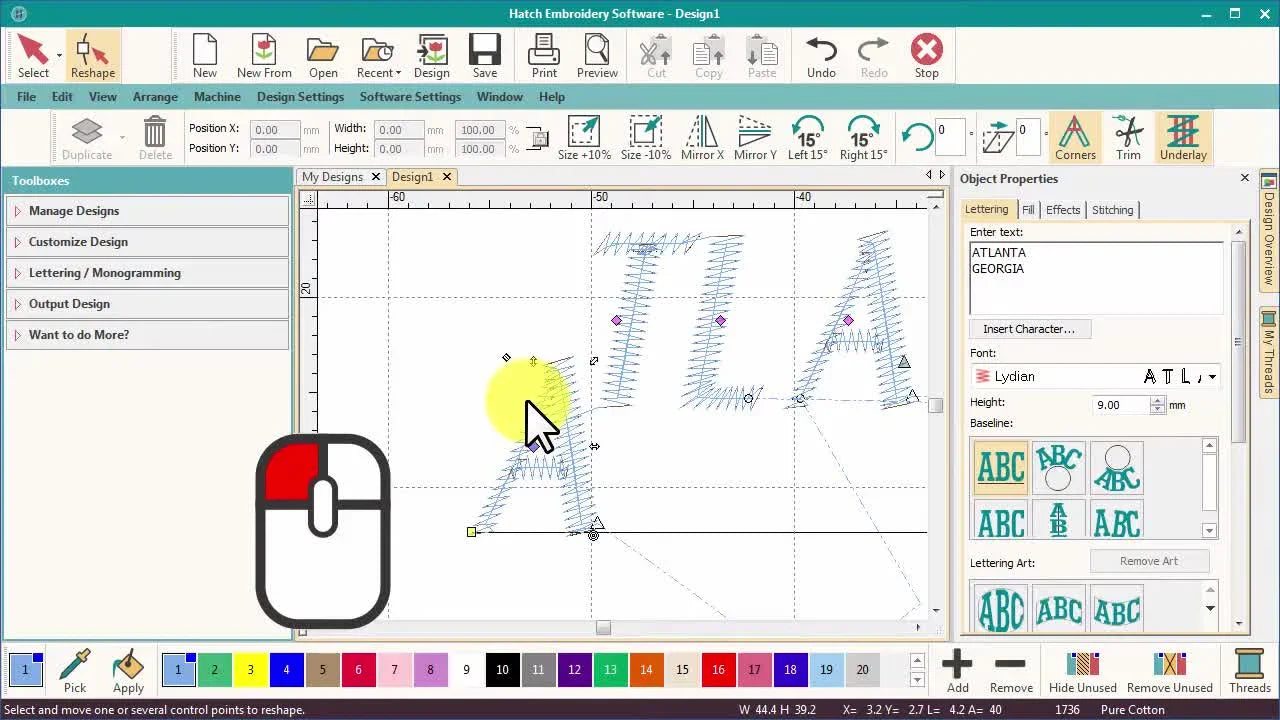
Lettering is where most embroidery jobs either look “pro” or look homemade—fast. If you’ve ever stared at a name or team line and thought, Why does this spacing feel off? Why does that one letter look like it’s drifting?—you’re exactly who the Hatch Reshape tool was built for.
Experience tells us that embroidery is a game of millimeters. A visually balanced design on screen can easily become a disaster on fabric if the physics of thread breaks and hoop tension aren't respected.
This post rebuilds the full workflow shown in the video (baseline controls → letter nodes → Shift/Ctrl moves → per-letter transforms → vector node editing), then adds the missing shop-floor reality: what these edits do to stitch quality, how to avoid the classic “I fixed spacing but created thread breaks” trap, and when it’s smarter to upgrade your production tools instead of fighting hooping and re-hooping.
The Reshape Tool in Hatch Embroidery Software: the calm way to take control of lettering (without panic-clicking)
When you select the Reshape Tool in Hatch, you’ll see two families of controls appear. Think of this like adjusting a camera lens: first you zoom (global), then you focus (local).
- Line nodes / baseline handles (these affect the whole text line)
- Letter nodes (diamond-shaped nodes that let you manipulate individual characters)
The video demonstrates this using a Text Object set to “ATLANTA GEORGIA”.
A small but important mindset shift: you’re not “editing letters” first—you’re deciding whether the problem is baseline-level (global spacing/scale) or letter-level (one character needs to move/tilt/reshape). That one decision prevents 80% of messy lettering edits.
Baseline arrow handles in Hatch lettering: fix kerning, compression, and proportional sizing in seconds
With the Reshape tool active, look at the hollow arrow handles at the end of the text line. The video shows three key baseline adjustments, and Hatch gives you a ghost outline while dragging so you can preview before releasing.
1) Kerning handle (right-end hollow arrow): separate all letters evenly
Dragging the hollow arrow just under the right-hand end of the baseline adjusts kerning across the entire line—it moves all letters apart together.
Use this when:
- The whole word feels cramped.
- Satin columns are crowding and you’re seeing “fat” joins where letters touch.
- You want a cleaner read from 6–10 feet away (teamwear, uniforms, shop signage).
Pro Tip: If you are stitching on high-pile fabric (like fleece or towels), open your kerning up by an extra 10-15%. Give the fabric room to breathe/fluff up between the letters, or the text will disappear into the pile.
2) Middle-right arrow: compress the width of the whole line
This compresses the lettering width (the video calls out compressing the letters). It’s the fastest way to make a long name fit a space without manually nudging every character.
Practical caution from the production side: compressing too aggressively can make columns too narrow and increase the chance of thread stress.
- The Safety Zone: Generally, try not to compress standard fonts below 85-90% width.
-
The Risk: If columns get thinner than 1mm, your needle (usually size 75/11) will struggle to penetrate cleanly, leading to thread shredding. In real stitch-outs, that often shows up as fuzzing, looping, or breaks—especially on small lettering.
3) Top-right arrow: scale letters and spacing proportionally
This enlarges the letters and the spacing between them proportionally. It’s the “keep the design’s balance” handle.
This is the handle I reach for when a customer changes garment size (youth → adult) and you need the text to scale up without the spacing looking weird.
4) Center-top arrow: stretch letters vertically
This increases letter height vertically. It’s useful for stylistic tweaks, but it’s also where people accidentally create stitch problems.
If you stretch vertically, you’re changing how long stitches run and how the underlay supports them. In general, taller satin areas may need better stabilization and sane density—always confirm in your software settings and test stitch. If the stitches exceed 7mm, ensure your machine is set to automatically convert to "Jump" or add a "Split Satin" to prevent snagging.
Multi-line lettering note: the extra left-hand hollow arrow for line spacing
In multi-line text objects, the video notes an additional hollow arrow on the left-hand end that opens line spacing.
That’s your “make it breathe” control for stacked names, slogans, or two-line locations.
Prep Checklist (before you touch a single node)
- Check Object Type: Confirm you’re editing the correct Text Object (not an outline or converted stitches).
- Diagnosis: Decide if this is a whole-line issue (baseline handles) or a single-letter issue (letter nodes)?
- Visual Setup: Zoom in enough to see nodes clearly, but keep the full word visible so you don’t over-correct.